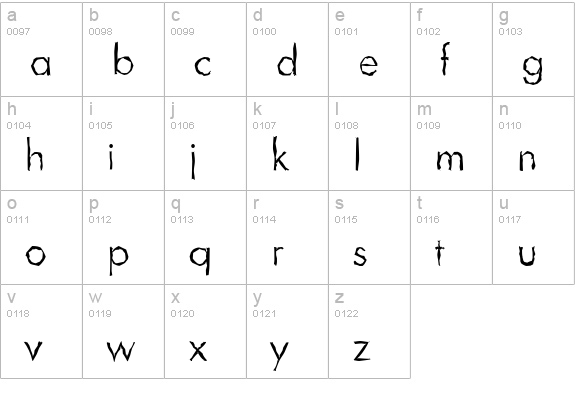
LimerickRandom-Light-Regular is a refined, elegant variant in the LimerickRandom typeface family \xE2\x80\x94 well suited to elegant body text, refined sub-headings, and luxury branding.
LimerickRandom-Light-Regular font is a charming and whimsical typeface that adds a touch of playfulness to any design project. With its quirky letterforms and unique character spacing, this font is perfect for adding a fun and lighthearted feel to your creations. Whether you're working on a poster, greeting card, or logo design, LimerickRandom-Light-Regular font will make your text stand out in a delightful way. Best of all, this font is available for free download at FontsMarket.com. Simply head to the website and grab your own copy of LimerickRandom-Light-Regular to add a touch of whimsy to your next project. Don't miss out on this fantastic opportunity to enhance your designs with this cheerful and eye-catching font!